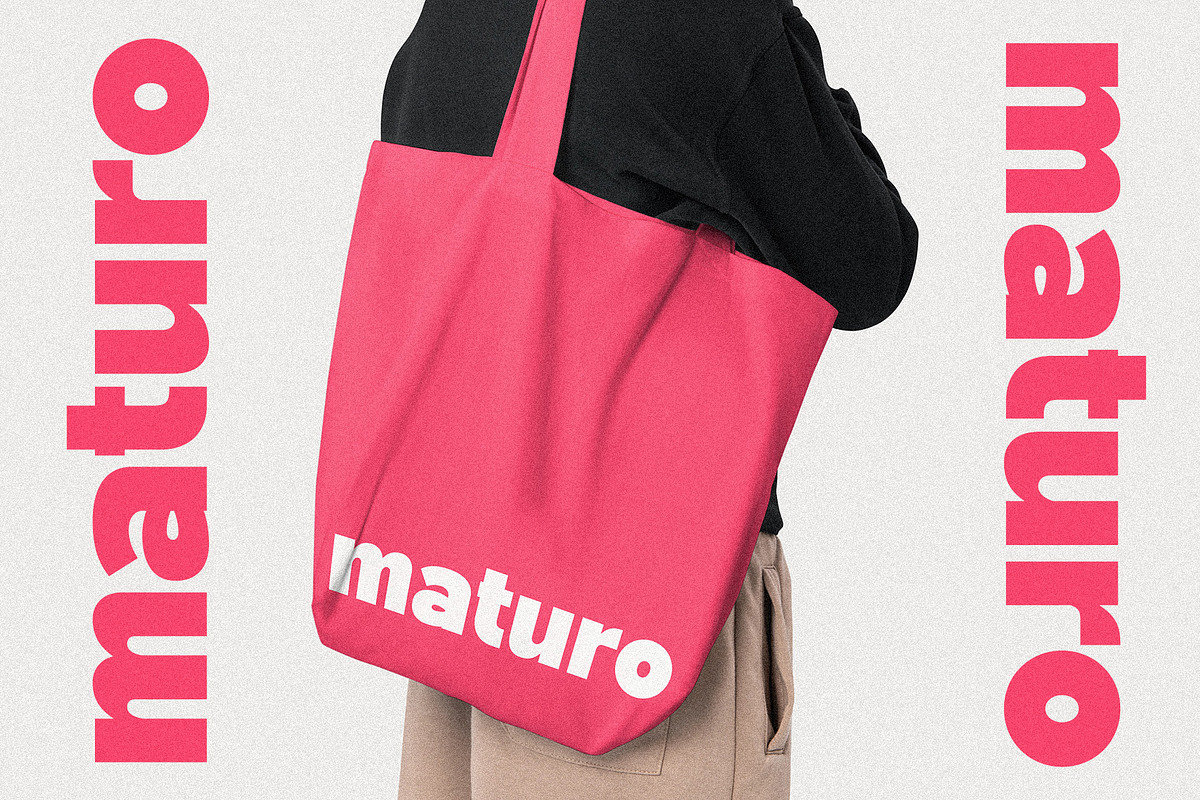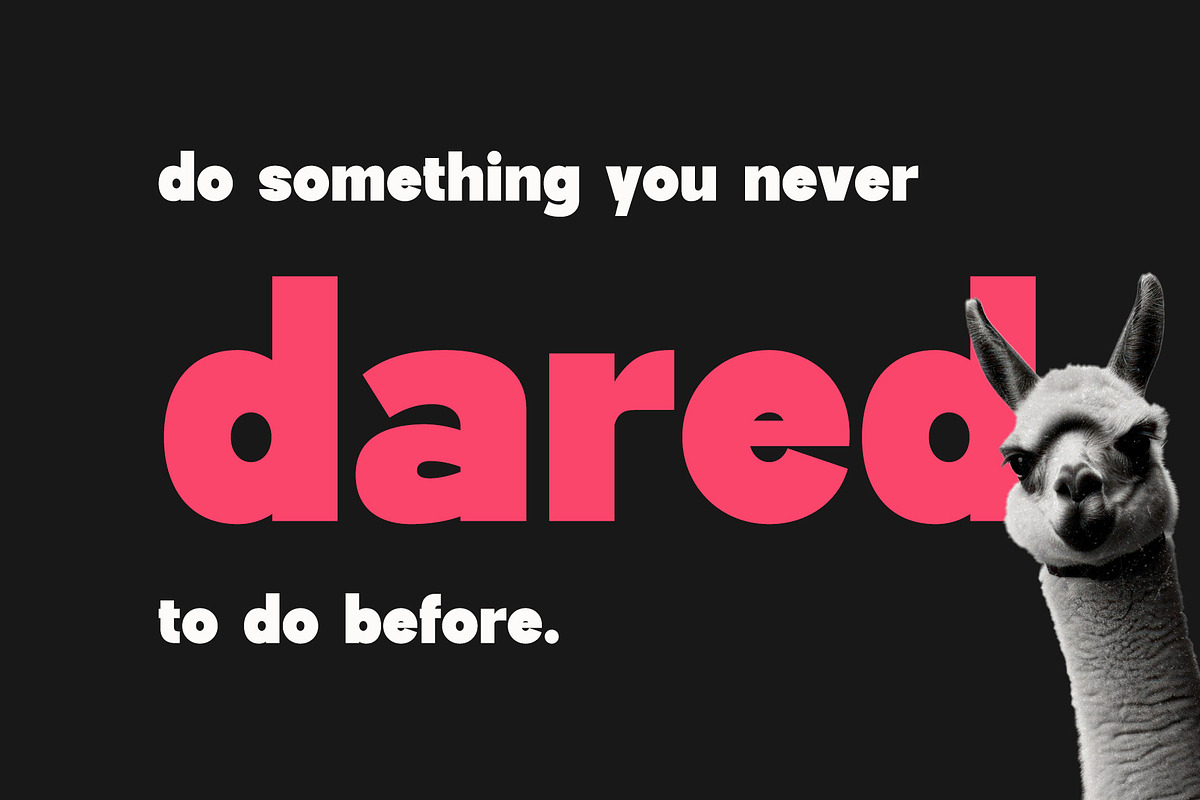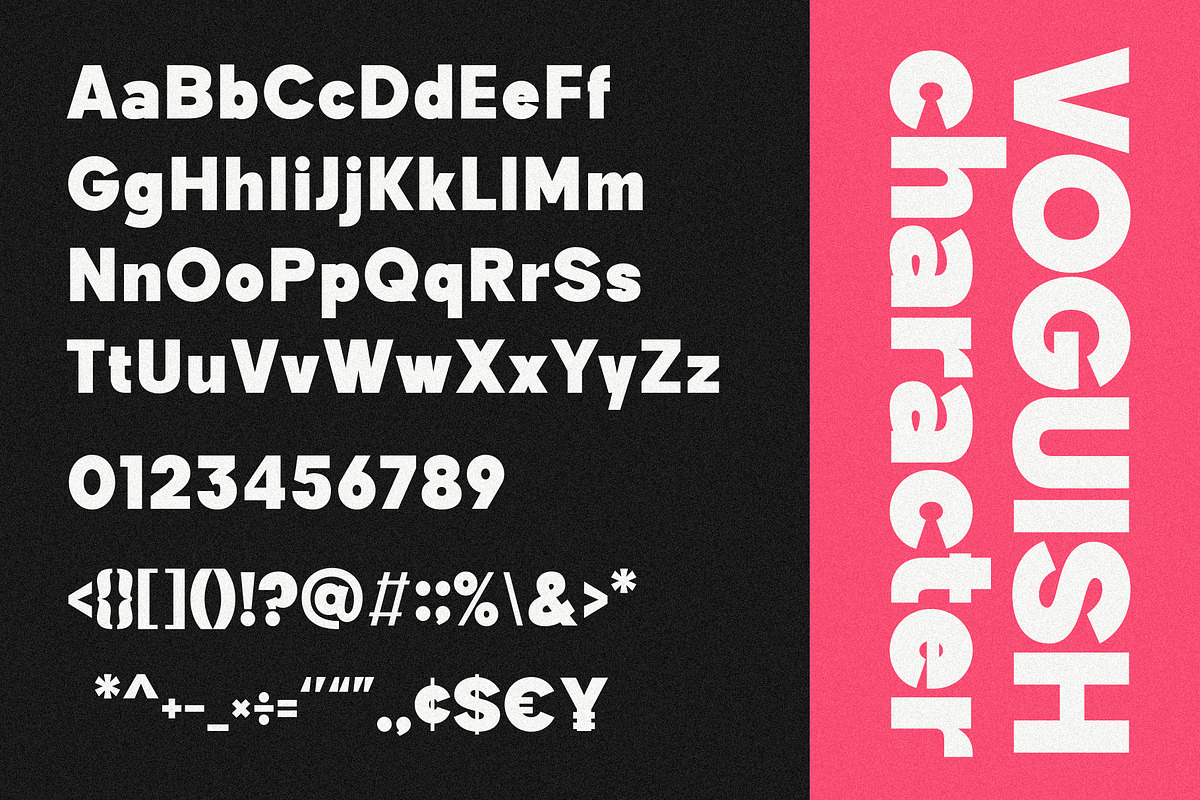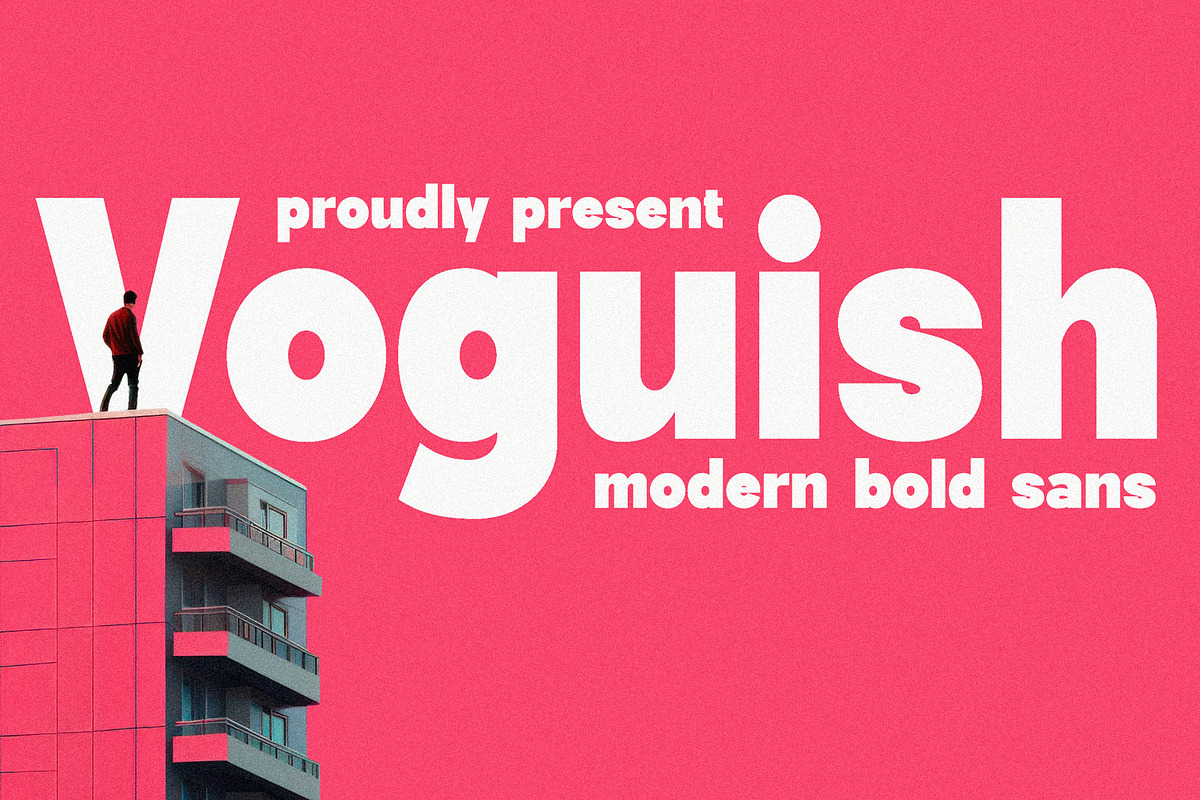
Voguish | Bold Sans
Introducing Voguish - Modern Bold sans. Voguish is a modern, bold and simple font, best used as a display for headings, logos, branding, magazines, product packaging and invitations.